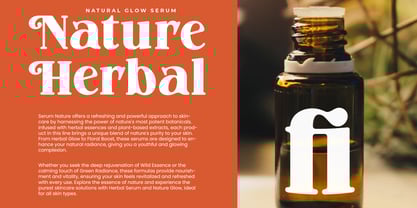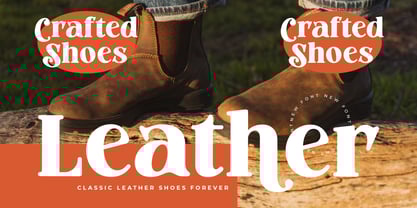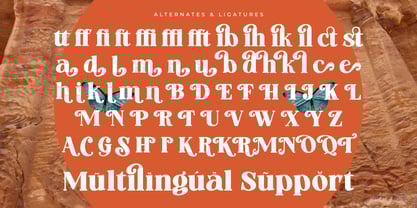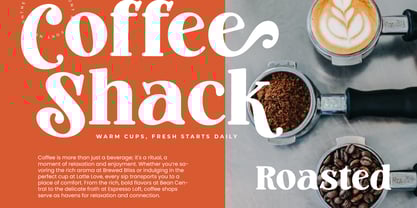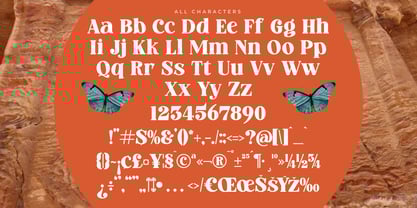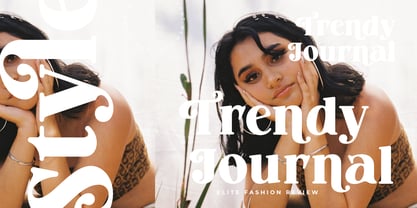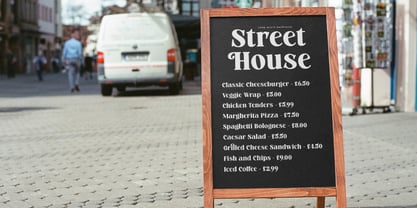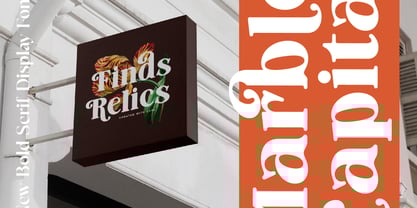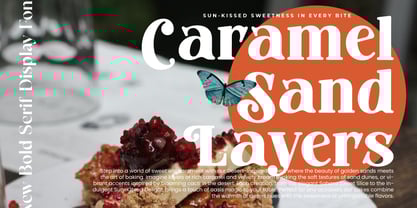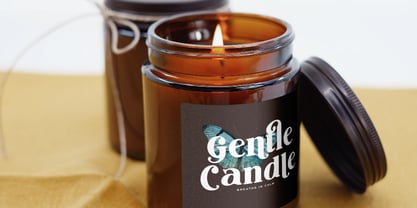
Marble Capital
by Timelesstype Studio
Marble Capital - New Bold Serif Display , from Timelesstype, Suitable for any projects such as: logos, branding projects, homeware designs, product packaging, mugs, quotes, posters, shopping bags, t-shirts, book covers, name card, invitation cards, greeting cards, label, photography, watermark, special events, and all your other luxury and beautiful projects that need a Luxury Serif taste.